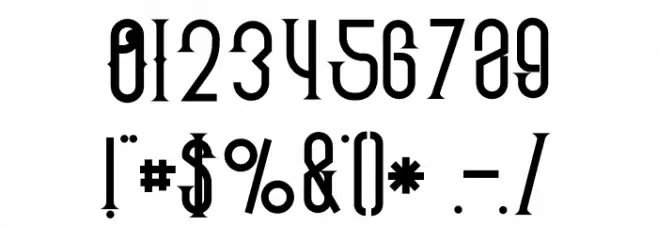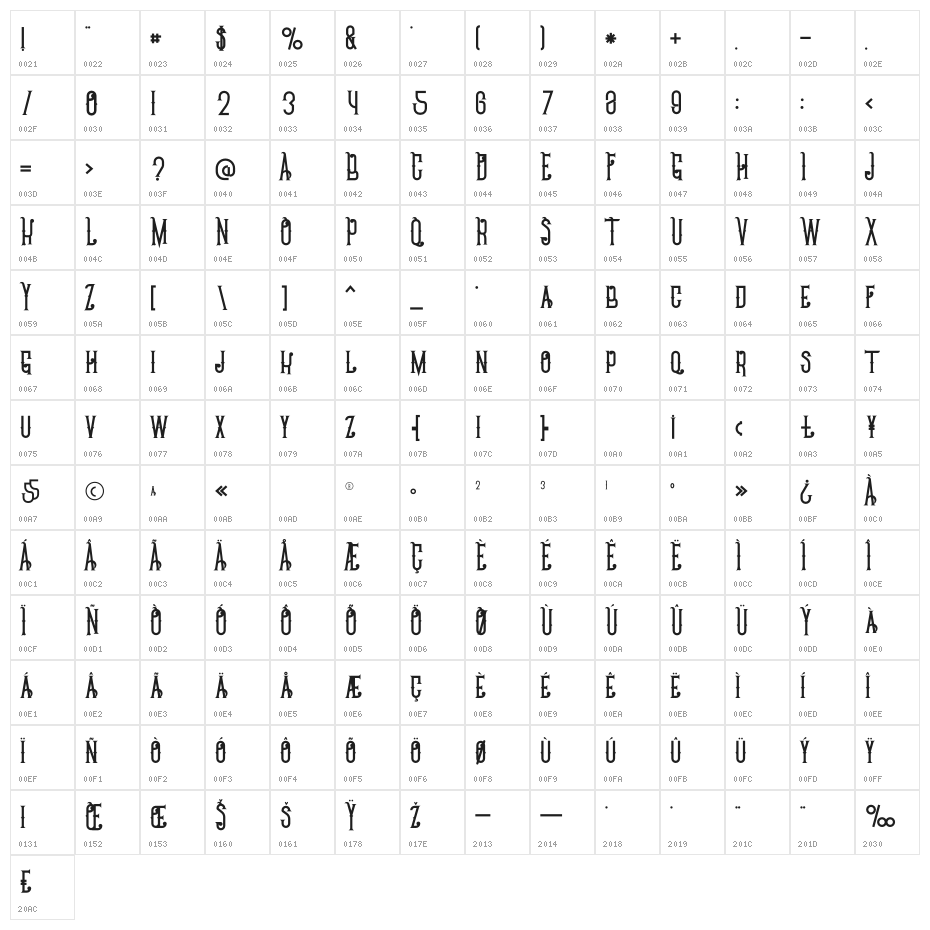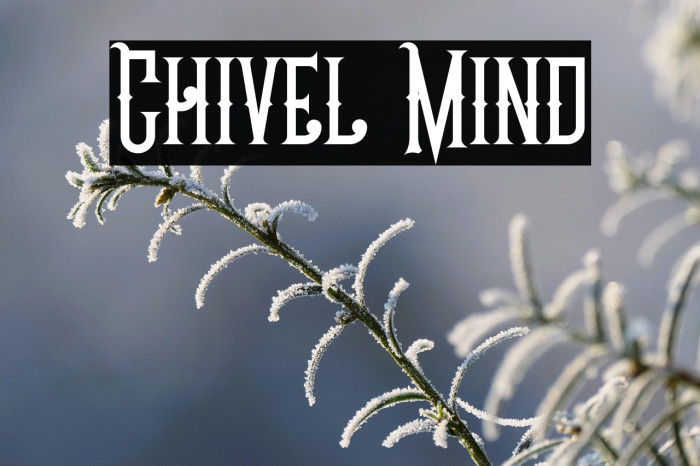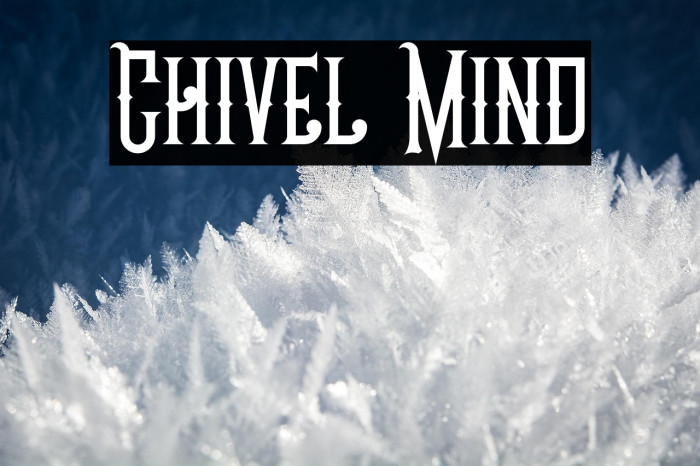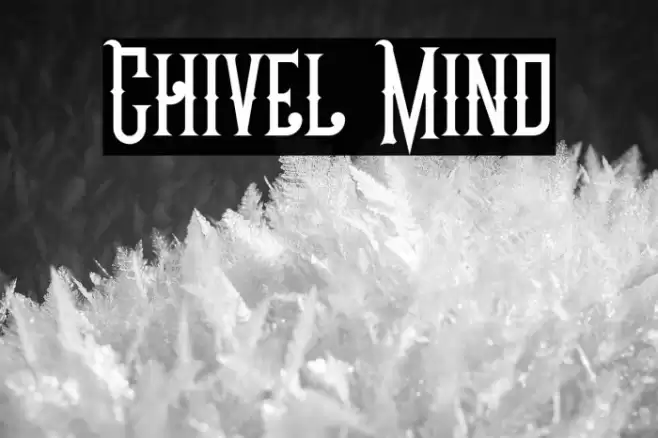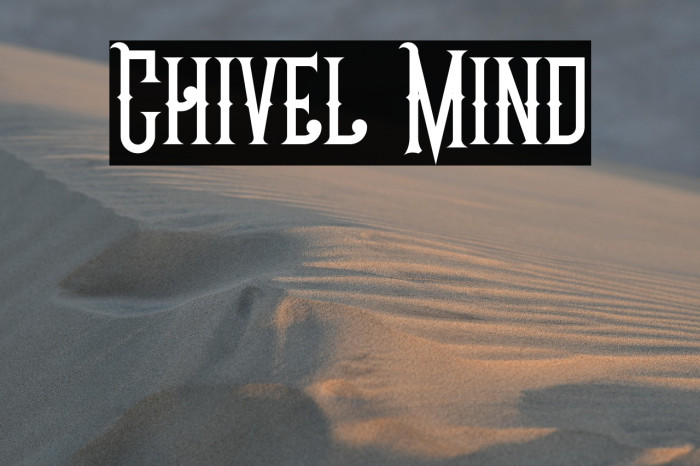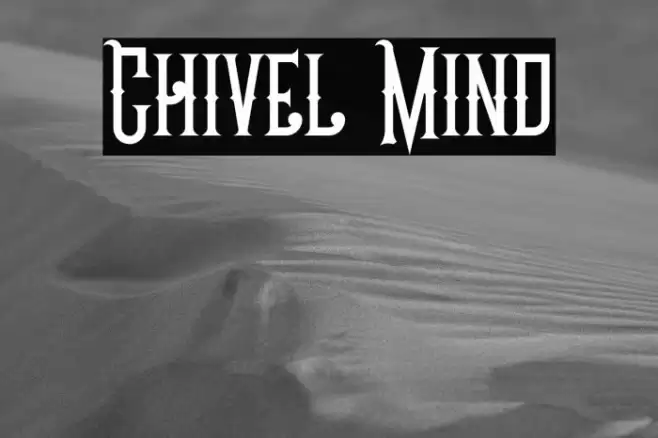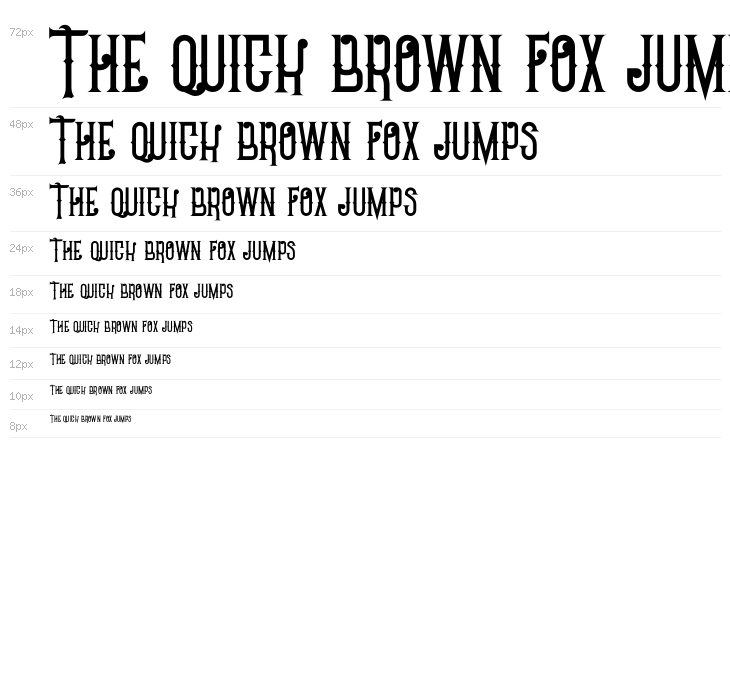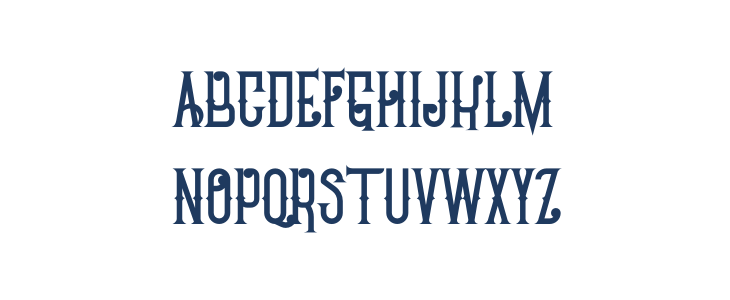
Chivel Mind Font
Chivel Mind Description
This font features a bold, decorative style with a distinct vintage flair. The characters are tall and narrow, with unique embellishments that give them a gothic appearance. The uppercase letters have a strong presence, while the lowercase letters maintain the same ornate design. The numbers and special characters are equally stylized, maintaining the overall aesthetic. This font's intricate details and high contrast between thick and thin strokes make it stand out, ideal for creating eye-catching designs.
| Overall Style | Vintage, Gothic |
| Proposed Projects | Ideal for posters, album covers, branding, and any project requiring a dramatic, vintage look. |